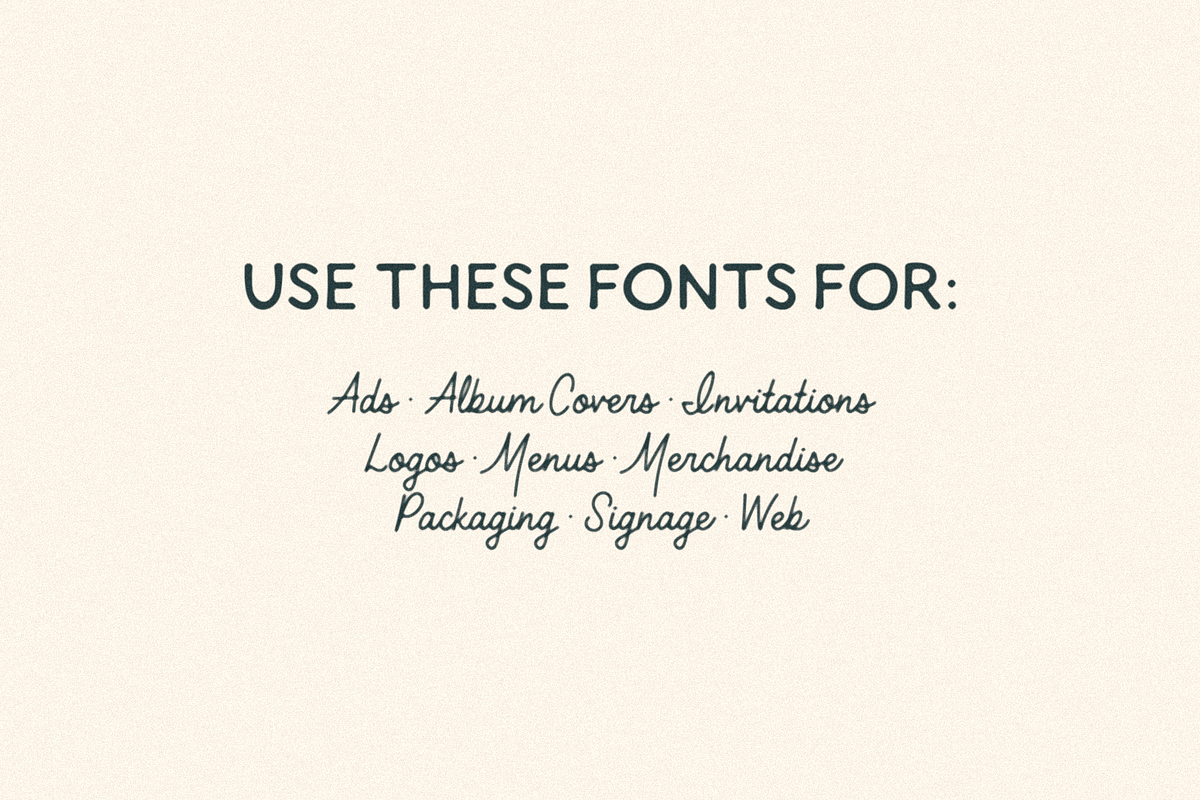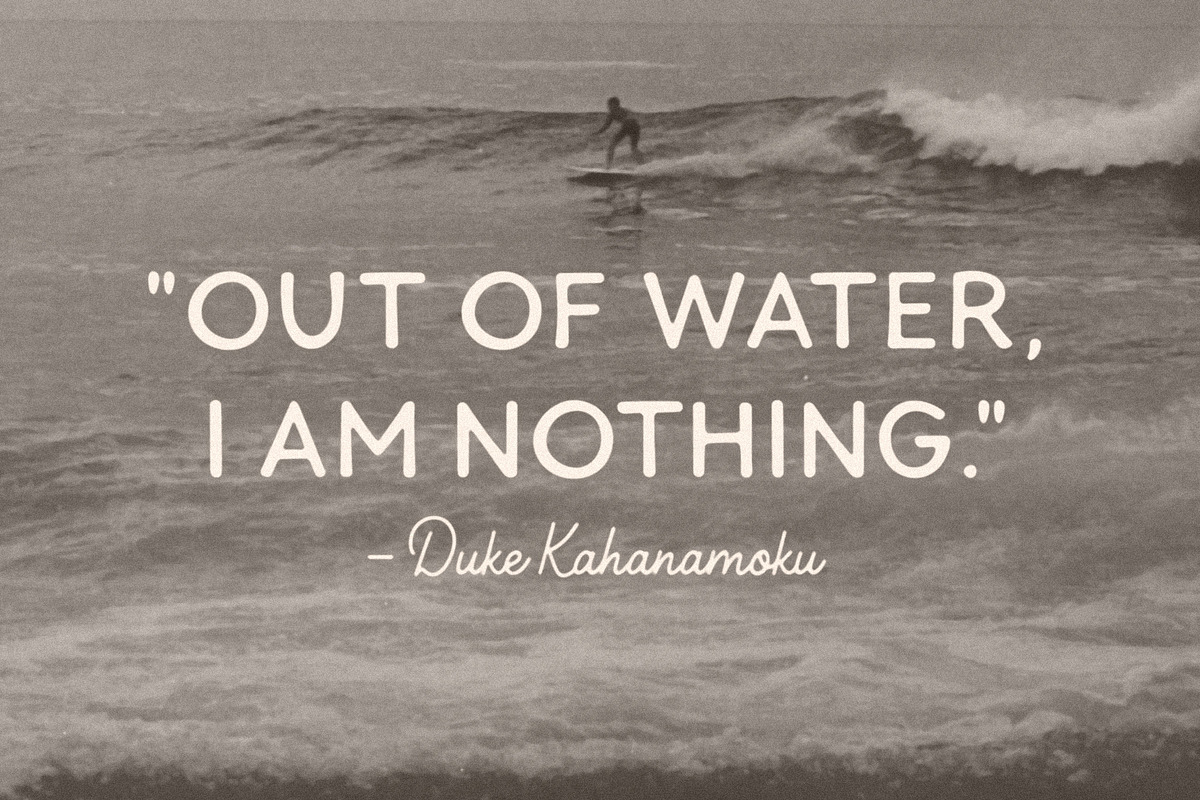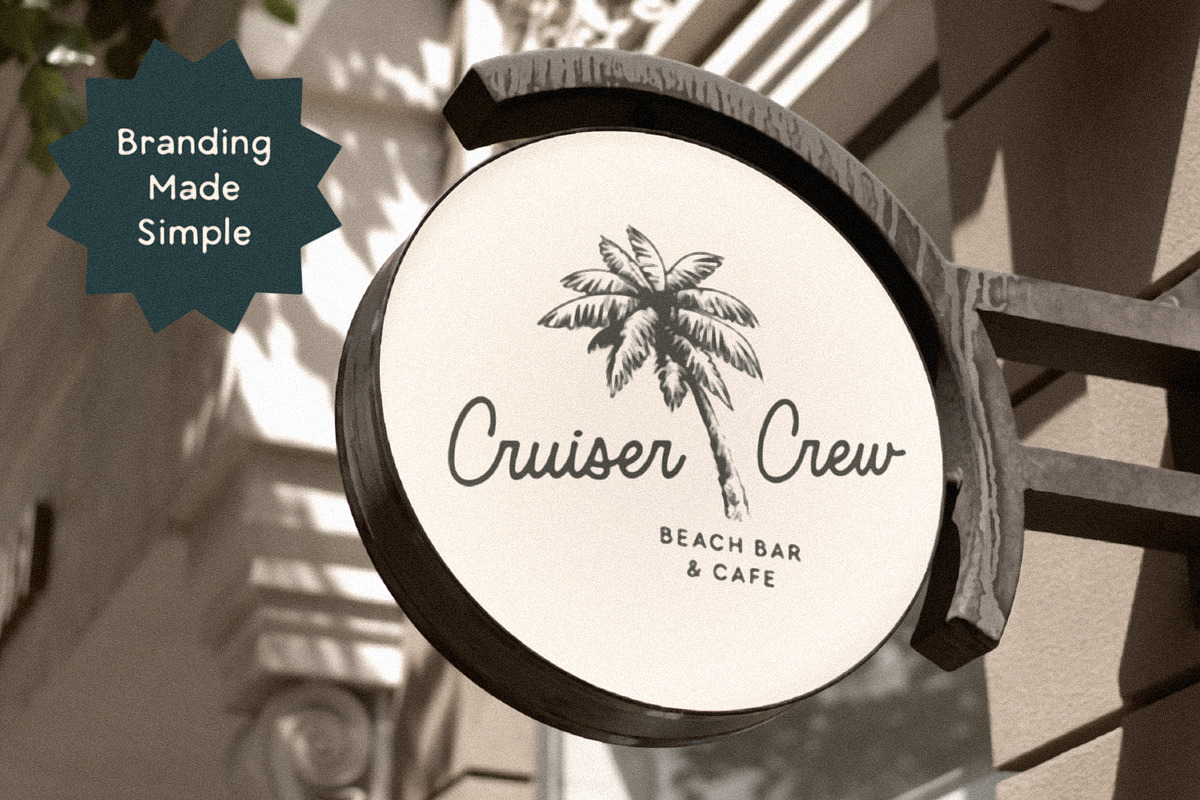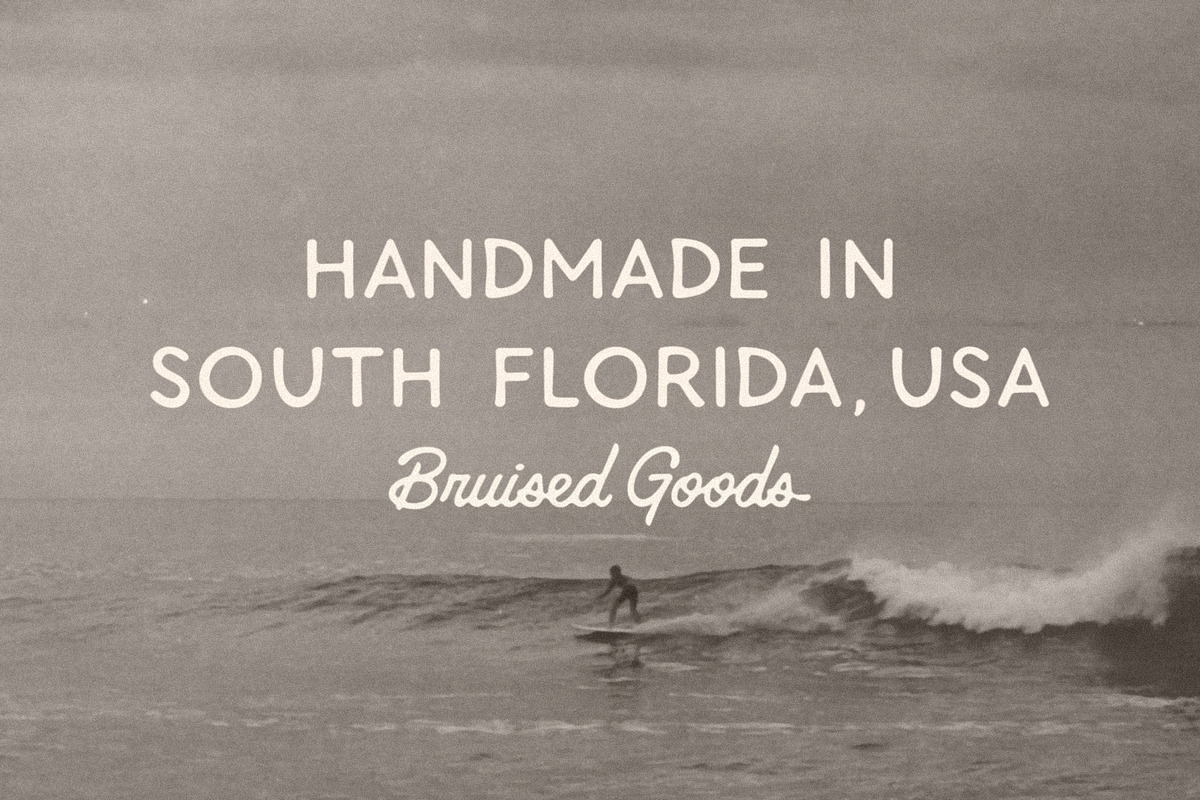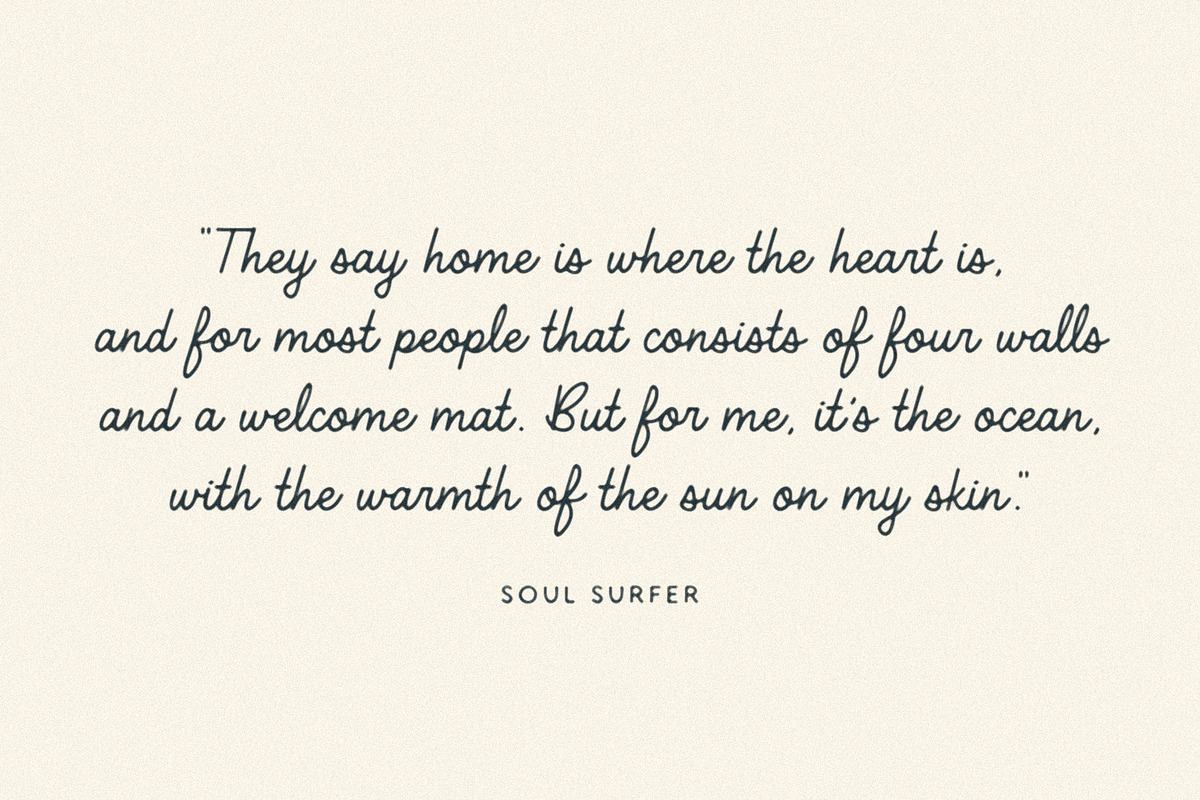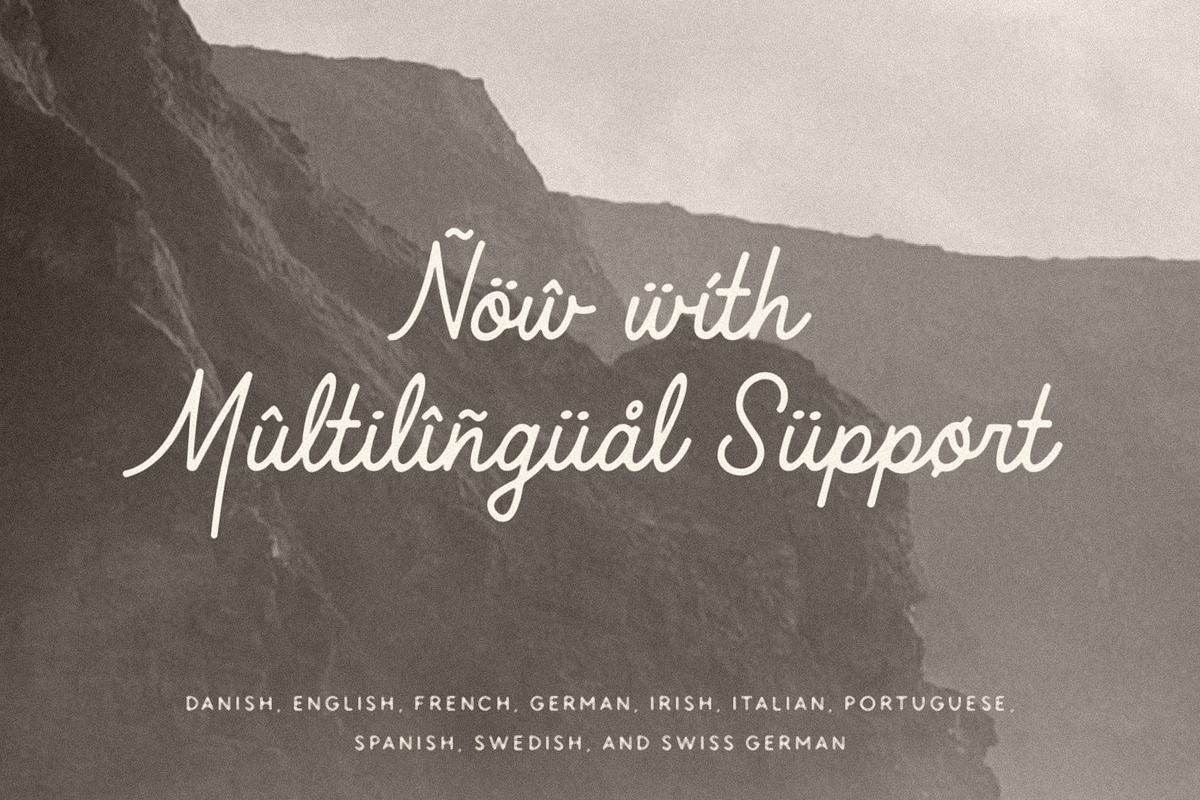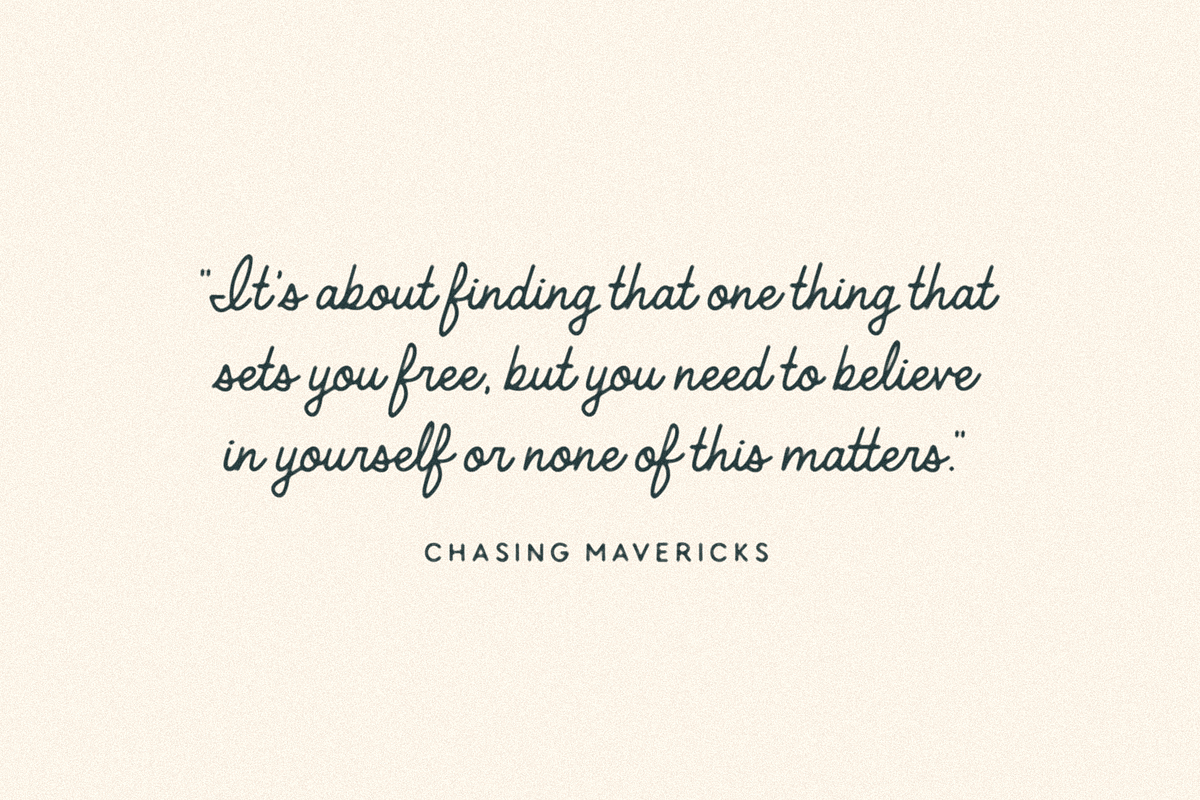
Mavericks + Pelicano
MAVERICKS + PELICANO – A smooth and sturdy hand crafted font duo, inspired by California surf culture and all things mid-century modern. Designed by Lauren Kilbane (on the other coast!) in sunny South Florida, USA.
Use these fonts for: ads, album covers, apparel, cards, flyers, invitations, logos, menus, merchandise, packaging, signage, web, and more.
I’m a big fan of the Pelicano font. I’m using it for a large-scale health initiative in the South Pacific focused on combating Type 2 diabetes. Its soft, approachable style — combined with excellent legibility — makes it highly effective for both confident readers and communities in remote villages with lower literacy levels. It also offers the multilingual support we need across the diverse Pacific dialects we’re working with.